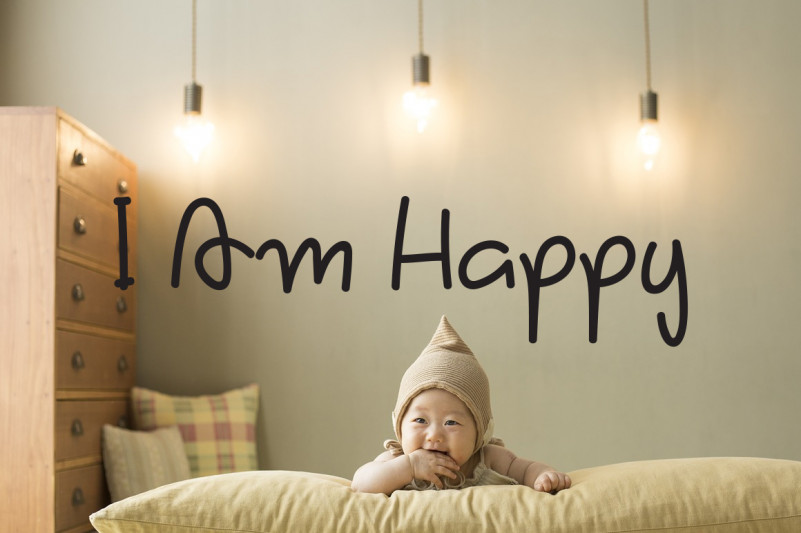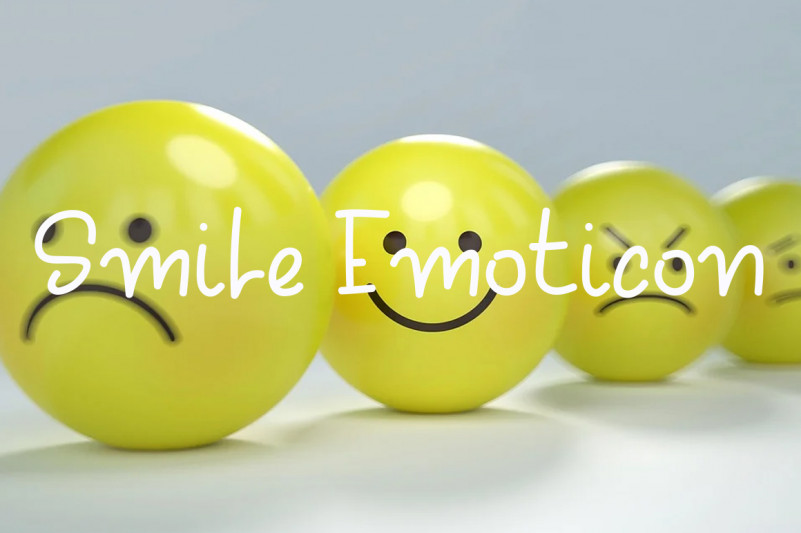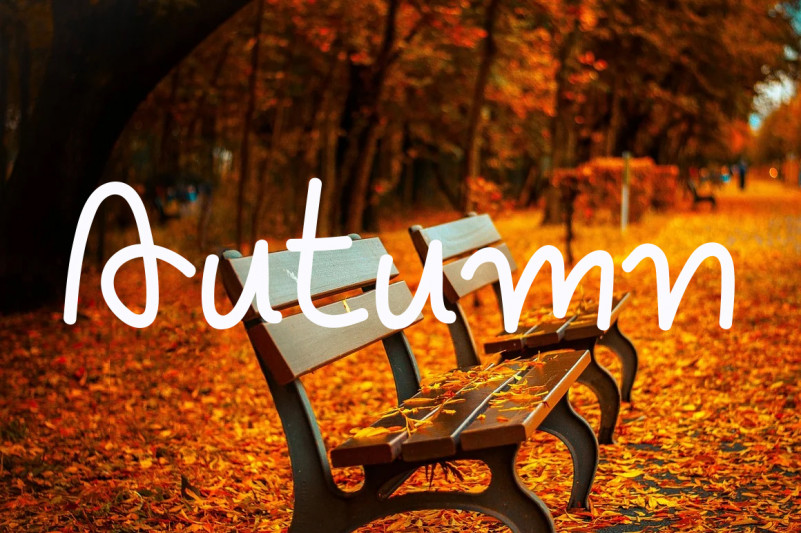
Take A Shine Display Font
This is a minimal script font. Fall in love with its completely different and timeless style and use it to create spectacular designs!